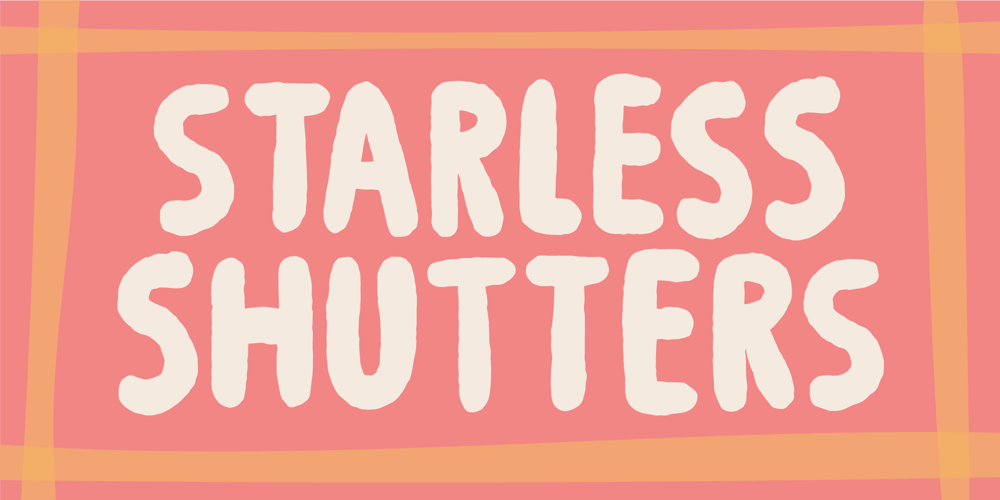
Starless Shutters
Starless Shutters font
Starless Shutters Font Family was designed by Jakob Fischer and published by PizzaDude.dk. Starless Shutters contains 2 styles and family package options. Starless Shutters is my slightly rough handmade all-caps headline font. With its crunchy outline, the font is suitable for most things that needs an organic look. That could be organic products, children’s books or toys, book covers or poster.I have added 4 slightly different versions of each letter, and they automatically cycles as you type – or you can manually choose the ones that suits you the best.